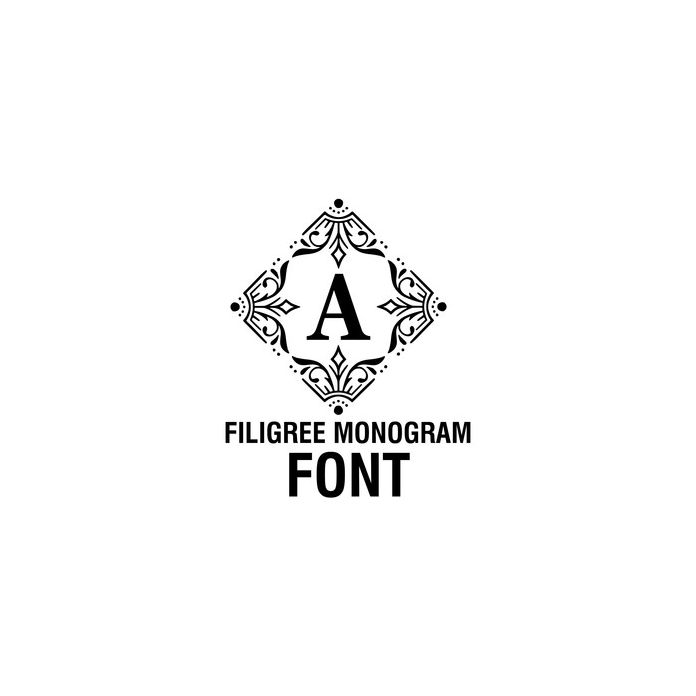
filigree monogram font
Includes all 26 letter monograms. Simply fill in a name and it's ready to cut and create with. These make great gifts or wedding decorations, etc...